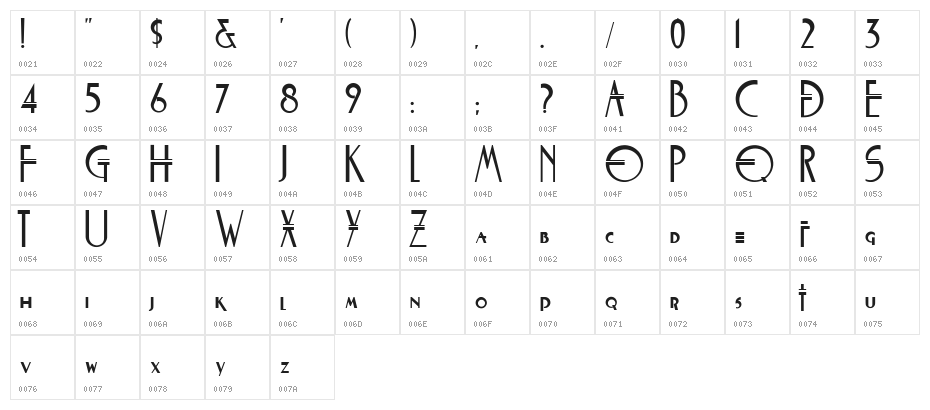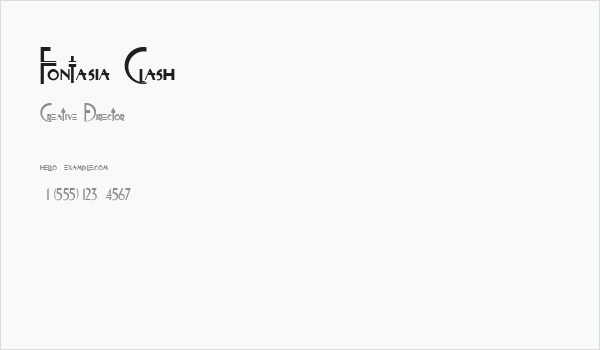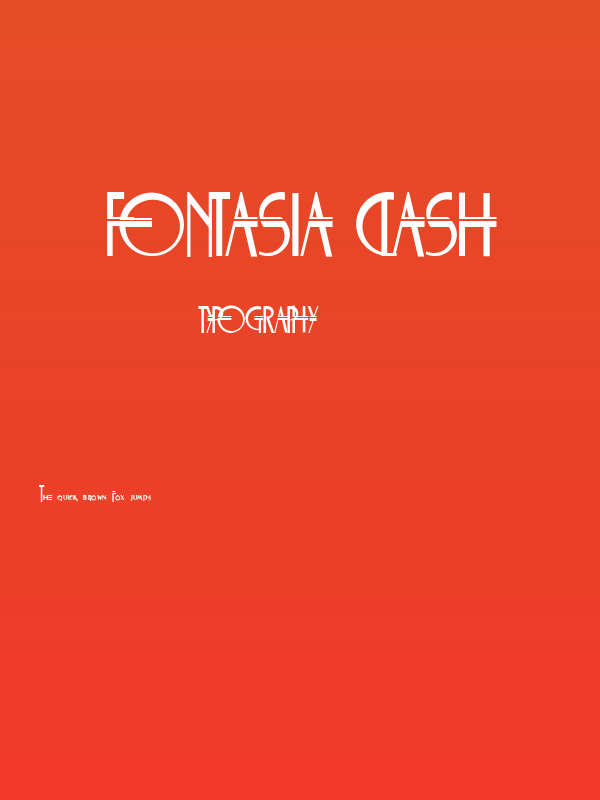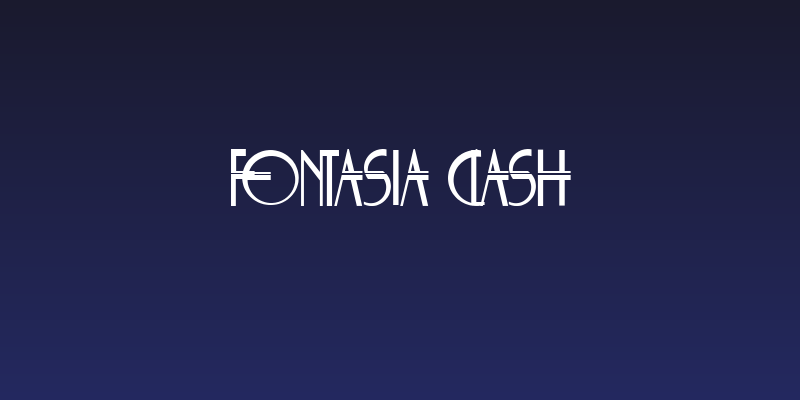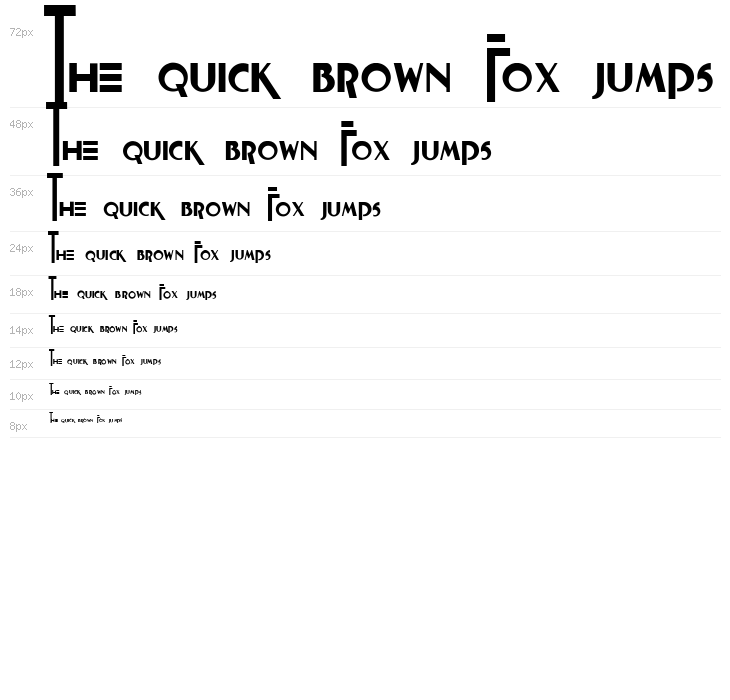
Fontasia Clash Font
Fontasia Clash Description
This font exhibits a bold and geometric design, characterized by sharp angles and unique line intersections. The uppercase letters feature a mix of thick and thin strokes, creating a dynamic visual contrast. The lowercase letters maintain a consistent style, with some characters incorporating distinctive cuts and slashes. Numbers are bold and slightly condensed, enhancing readability while maintaining the font's modern aesthetic. Special characters are designed with a similar geometric flair, ensuring cohesion across all glyphs. This font's striking appearance makes it suitable for attention-grabbing designs.
| Proposed Projects | Ideal for modern branding, poster design, and editorial headlines. |